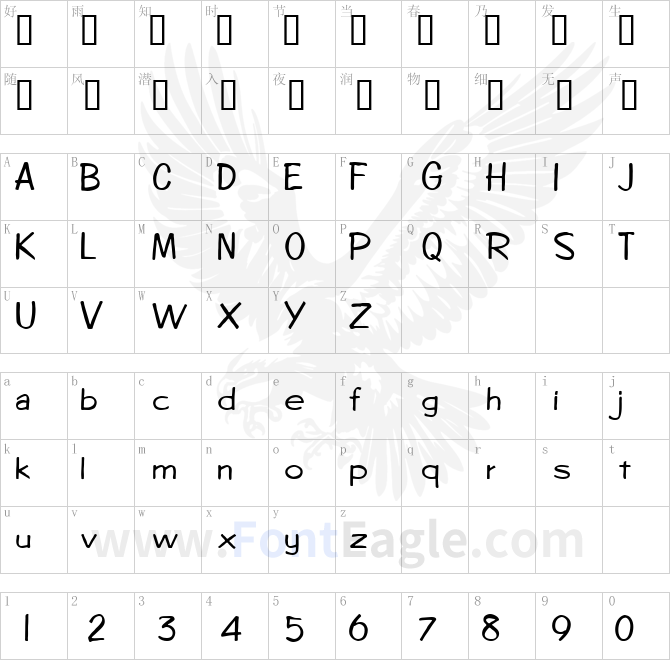
Copybook-Normal-copy-1- is a great font, widely used in graphic design, single-page menu design, poster design and other fields, and is deeply loved by designers.Copybook-Normal-copy-1- download.